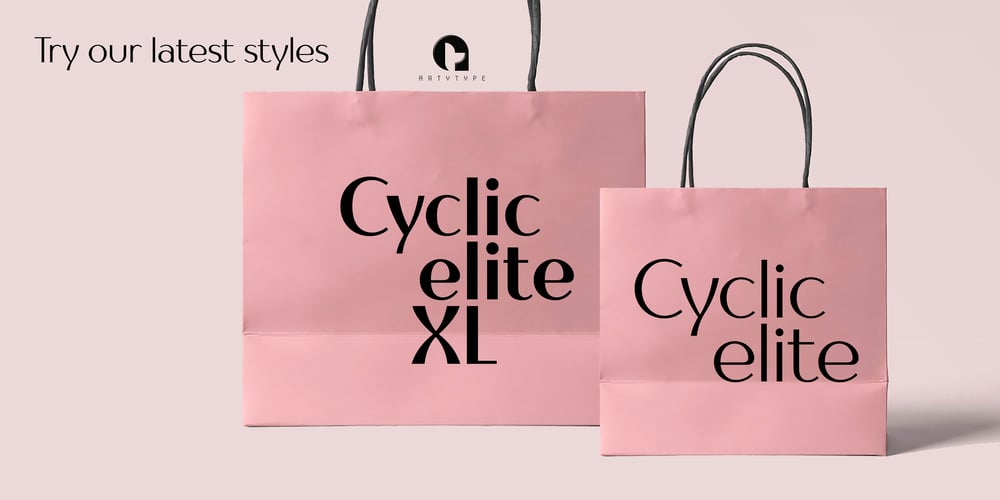
Cyclic Elite
Cyclic Elite font
Cyclic Elite Font Family was designed by James Marsh and published by ArtyType. Cyclic Elite contains 2 styles and family package options. Cyclic Elite is a stylish display face with high contrast features and charming cursive attributes, available in 2 weights, Regular & XL. Cyclic Elite will lend a luxurious and classy feel to any campaign or brand product. This addition to the Cyclic range adds versatility and panache to the set and works beautifully as a headline font, in particular when accompanied by Cyclic Sans.